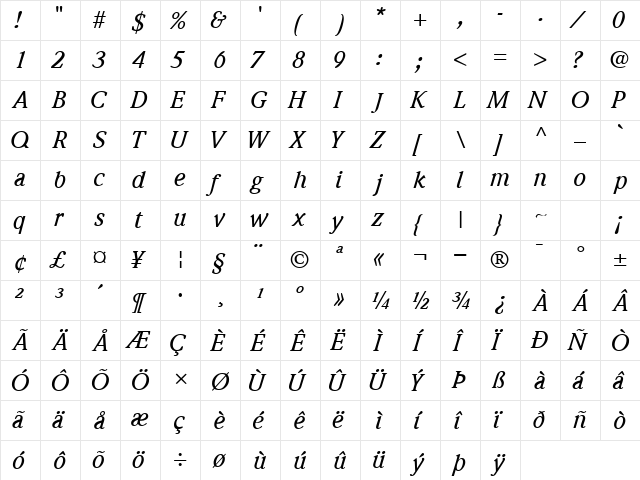
QuintessenceMediumSSK Italic
Design Context for QuintessenceMediumSSK Typeface
QuintessenceMediumSSK takes a measured approach to typography — its balanced proportions and neutral character make it a reliable workhorse for both digital and print work. Its italic angle brings a sense of urgency and motion to the letterforms.
Pro Tip: Use QuintessenceMediumSSK for emphasis, pull quotes, and subheadings where its slanted energy can add rhythm to the layout.